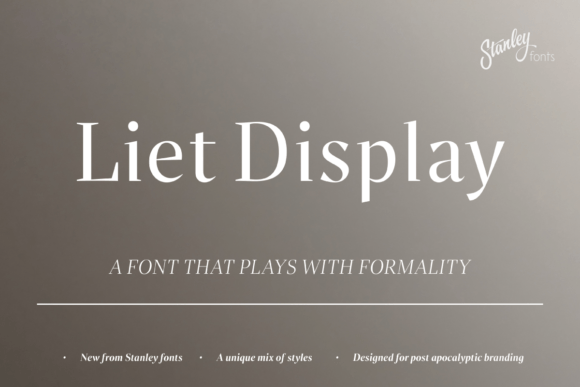
Are you tired of using the same old fonts for your online videos? Look no further! Introducing Liet Font, the best font for online video. Created by Stanley Fonts, Liet Display is a truly unique font that will take your videos to the next level.
Liet Display is not your ordinary font. It breaks the boundaries of traditional fonts by effortlessly blending italic and upright, sans and serif. This innovative design creates a stunning visual impact that is sure to captivate your audience. Say goodbye to boring and predictable fonts – Liet Display is here to make a bold statement.
But Liet Display is not just about its unconventional style. It goes beyond aesthetics and proves to be a practical choice for various applications. While it truly shines in larger sizes (12 pts and above), Liet is also highly recommended for packaging, branding, and editorial purposes. Whether you're creating a logo, designing a product package, or working on an editorial layout, Liet Display will elevate your work to new heights.
What sets Liet Display apart from other fonts on the market is its versatility and adaptability. It introduces new shapes that are perfect for post-apocalyptic branding, giving your projects a unique and edgy touch. With Liet Display, you can establish a strong brand identity that stands out from the crowd.